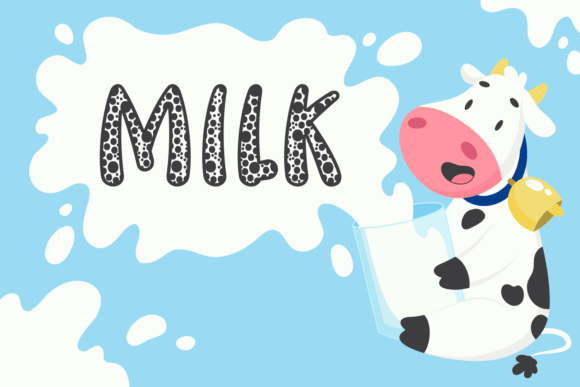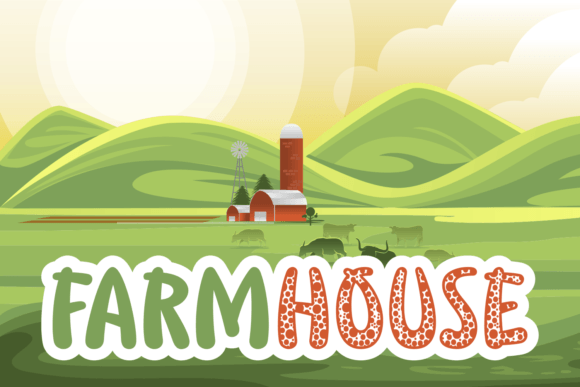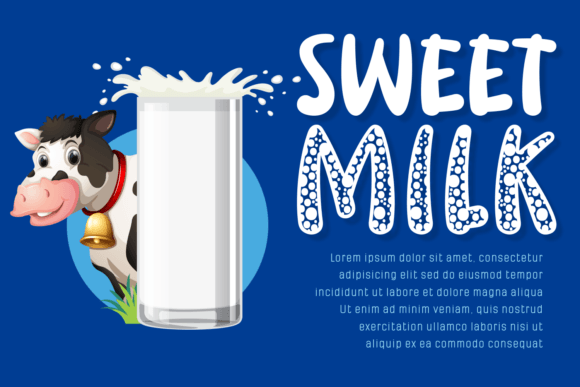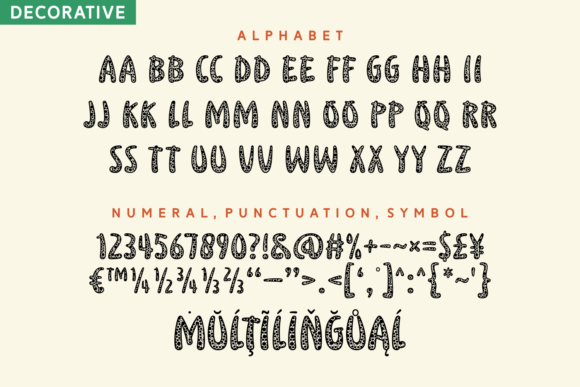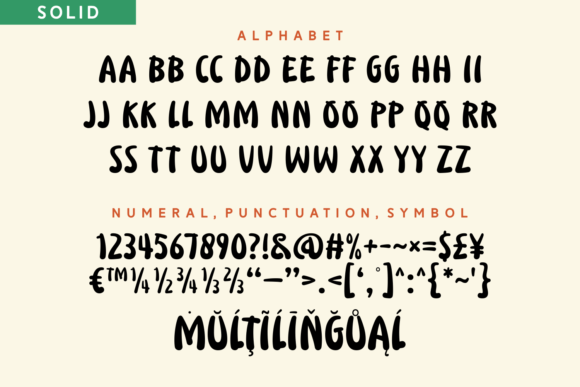
Dairy Farm Font: The Perfect Choice for Your Next Project
Are you looking for a fun and joyful font to add a touch of whimsy to your design projects? Look no further than the Dairy Farm Font! This decorative font is perfect for dairy product packaging, farm-related projects, advertising materials, and more. With its spotted characters and playful vibe, it’s sure to bring a smile to your customers’ faces.
What is Dairy Farm Font?
Dairy Farm Font is a unique and eye-catching decorative font that features spotted characters. It’s a fun and creative way to add some personality to your designs. The font is inspired by the rustic charm of dairy farms and the joy of working with fresh, natural products. Whether you’re designing a label for a dairy product, creating a logo for a farm-related business, or developing an advertisement for a agricultural company, this font is sure to make your project stand out.
Features of Dairy Farm Font
- Spotted Characters: Each character in the Dairy Farm Font features adorable spots, giving it a playful and whimsical feel.
- Decorative: This font is perfect for decorative projects, such as packaging, signage, and advertising materials.
- Fun and Joyful: The Dairy Farm Font has a lighthearted and cheerful vibe that’s sure to bring a smile to your customers’ faces.
- High-Quality: The font is designed with high-quality craftsmanship, ensuring that it looks great in any size or application.
Uses for Dairy Farm Font
The Dairy Farm Font is incredibly versatile and can be used in a variety of projects, including:
- Dairy Product Packaging: Add a touch of whimsy to your dairy product labels with this fun and playful font.
- Farm-Related Projects: Use the Dairy Farm Font to create logos, signage, and other materials for farm-related businesses.
- Advertising Materials: Add some personality to your ads with this eye-catching font.
- Crafting and Scrapbooking: The Dairy Farm Font is also perfect for crafters and scrapbookers who want to add a personal touch to their projects.
Why Choose Dairy Farm Font?
There are many reasons to choose the Dairy Farm Font for your next project. Here are just a few:
- Unique: The Dairy Farm Font is a one-of-a-kind font that’s sure to make your project stand out.
- High-Quality: The font is designed with high-quality craftsmanship, ensuring that it looks great in any size or application.
The Dairy Farm Font is a fun and joyful decorative font that’s perfect for dairy product packaging, farm-related projects, advertising materials, and more. With its spotted characters and playful vibe, it’s sure to bring a smile to your customers’ faces. Whether you’re a designer, crafter, or scrapbooker, this font is a great choice for your next project. So why wait? Give the Dairy Farm Font a try today and see the difference it can make!